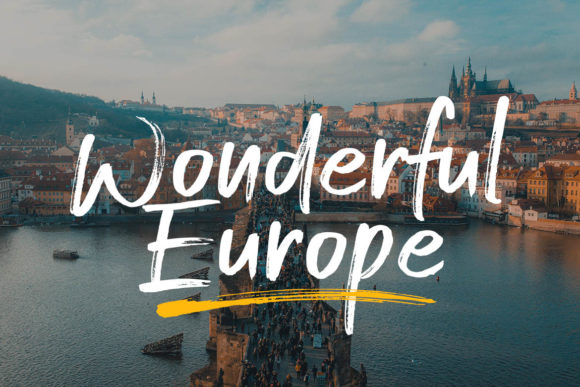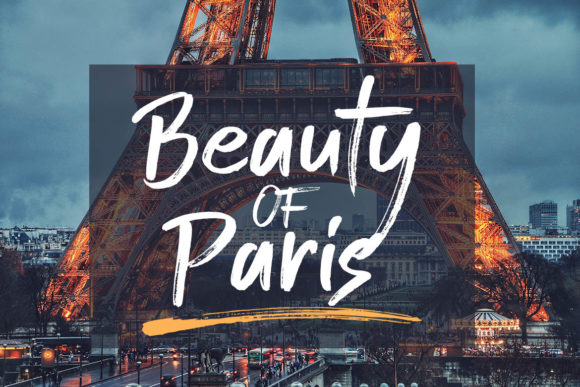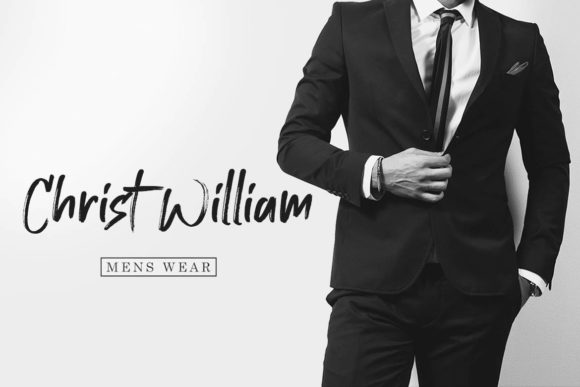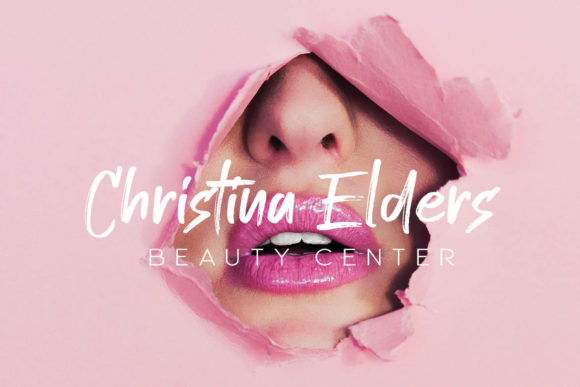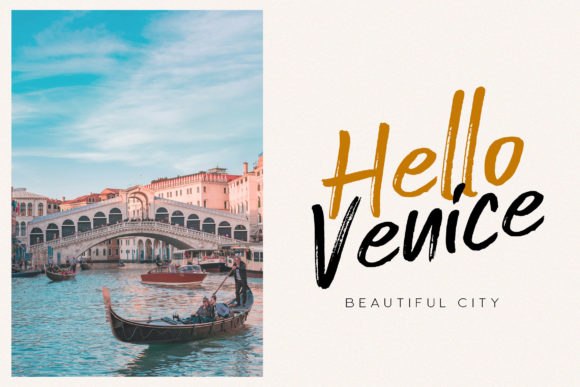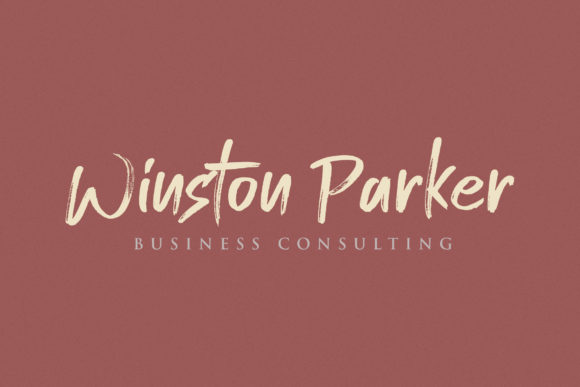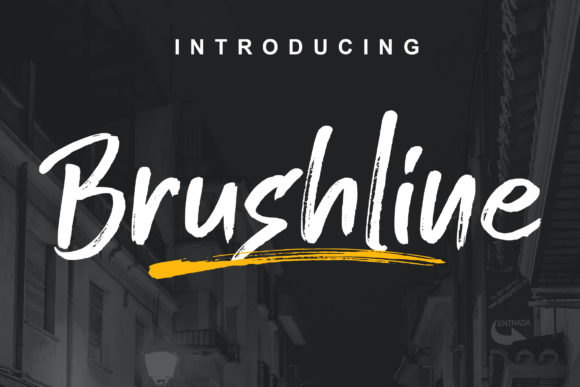
Unleash Your Creativity with Brushline Font: The Ultimate Guide
Are you tired of using the same old fonts in your designs? Do you want to add a touch of adventure and authenticity to your work? Look no further than Brushline Font, a raw and dynamic script that’s perfect for designers and crafters looking to take their designs to the next level.
What is Brushline Font?
Brushline Font is a unique and expressive script font that’s designed to evoke a sense of freedom and spontaneity. With its bold, sweeping strokes and organic feel, Brushline Font is perfect for adding a touch of personality to any design. Whether you’re working on a logo, a poster, or a social media graphic, Brushline Font is sure to make your design stand out.
Key Features of Brushline Font
- Raw and Dynamic: Brushline Font has a raw, unbridled energy that’s perfect for designs that need a bit of attitude.
- Adventurous and Authentic: With its organic feel and spontaneous strokes, Brushline Font feels adventurous and authentic.
- Highly Versatile: Brushline Font can be used in a wide range of designs, from logos and posters to social media graphics and more.
- Easily Readable: Despite its bold and expressive nature, Brushline Font is still highly readable, even at smaller sizes.
How to Use Brushline Font in Your Designs
Brushline Font is incredibly versatile, and can be used in a wide range of designs. Here are a few ideas to get you started:
- Logos: Use Brushline Font to create a bold and memorable logo that’s sure to stand out.
- Posters: Add a touch of personality to your posters with Brushline Font, perfect for promoting events, products, or services.
- Social Media Graphics: Use Brushline Font to add a bit of flair to your social media graphics, from Facebook posts to Instagram stories.
- Branding: Use Brushline Font as part of your brand identity, perfect for creating a consistent and recognizable look across all your marketing materials.
Tips for Getting the Most Out of Brushline Font
Here are a few tips for getting the most out of Brushline Font:
- Experiment with Different Sizes: Brushline Font looks great at a wide range of sizes, from small and subtle to large and bold.
- Play with Color: Brushline Font looks great in a wide range of colors, from bold and bright to muted and pastel.
- Combine with Other Fonts: Brushline Font pairs well with a wide range of other fonts, from serif and sans serif to script and display.